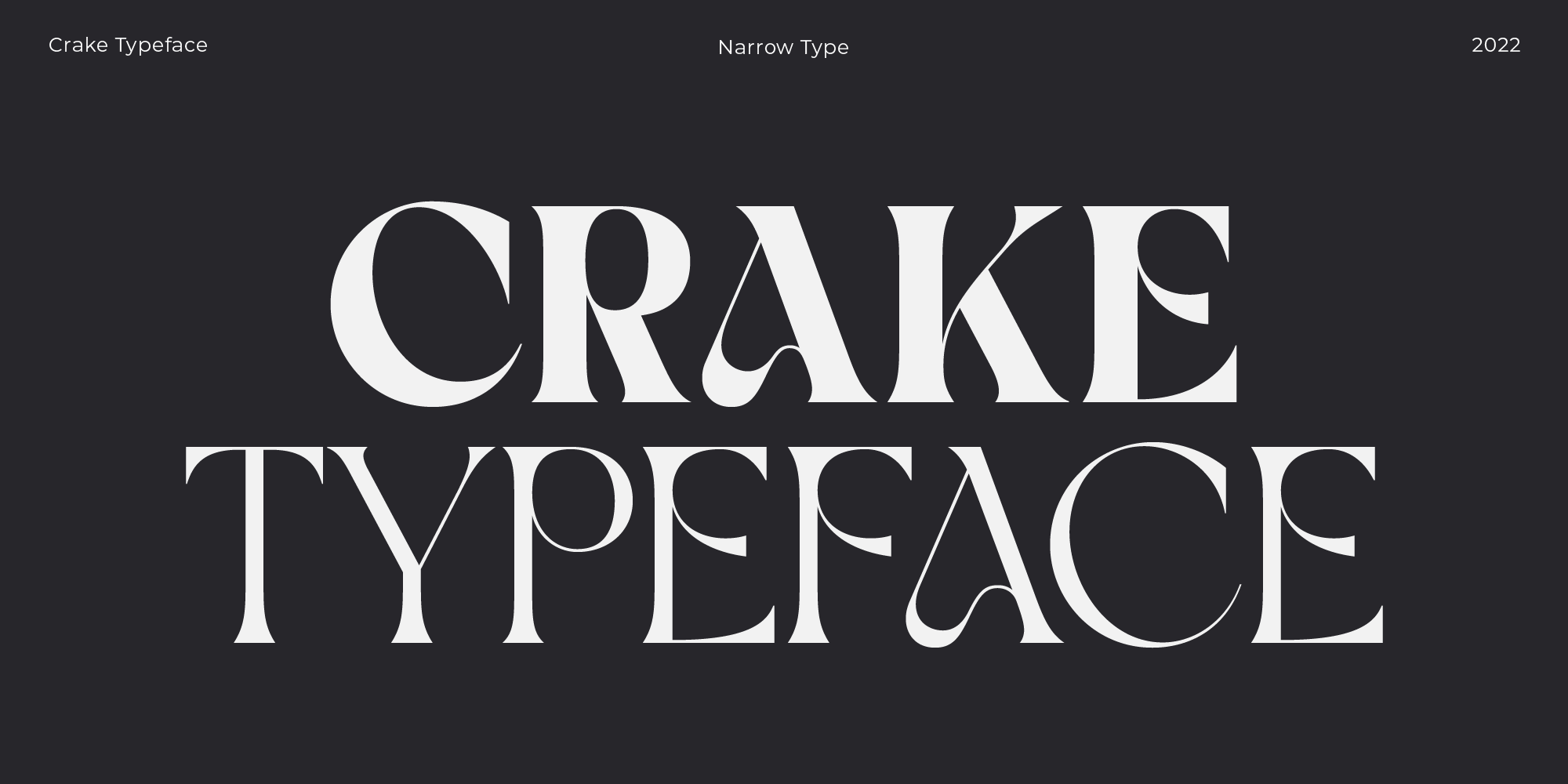
The Crake Font is a bold and dynamic display typeface, often characterized by its strong, impactful presence and a distinctly modern, perhaps slightly edgy or condensed aesthetic. Imagine its commanding characters dominating posters for urban music events, adding a powerful punch to streetwear branding, or creating striking headlines for action-oriented video games and extreme sports promotions. Its robust construction and often sharp angles or industrial touches also make it an excellent choice for dynamic event signage, strong corporate identities, and any design where a clear, forceful statement is paramount. Whether you're aiming for a powerful, no-nonsense look or a contemporary design with an undeniable impact, Crake Font delivers with its unwavering character, ensuring your message is conveyed with supreme confidence and high visibility.
What makes Crake Font so exciting is its inherent ability to project strength and efficiency with a modern twist. In a visual landscape where capturing immediate attention is crucial, this font stands out with its powerful visual impact and remarkable legibility, even when condensed or used in large display sizes. It’s more than just a typeface; it’s a design accelerant that can instantly convey urgency, determination, and a cutting-edge attitude. Crake Font offers designers the opportunity to create visuals that are both visually aggressive and remarkably clear, making it an invaluable asset for those looking to communicate a sense of power and contemporary flair in a compact and impactful form.
The Crake Font family is typically structured to offer a range of styles that amplify its bold and condensed appeal. Beyond the primary Crake Regular typeface, you might find companion styles such as a more impactful Crake Bold for even stronger emphasis, or perhaps Crake Italic to provide dynamic slant. Given its display nature and focus on impact, the family may also include variations in width (e.g., Ultra Condensed) to maximize versatility in tight spaces, or specialized characters for unique design needs. These diverse family members provide designers with the flexibility to establish a clear typographic hierarchy and maintain a consistent, high-impact aesthetic across all elements of their project, from dominant headlines to supporting graphic elements.